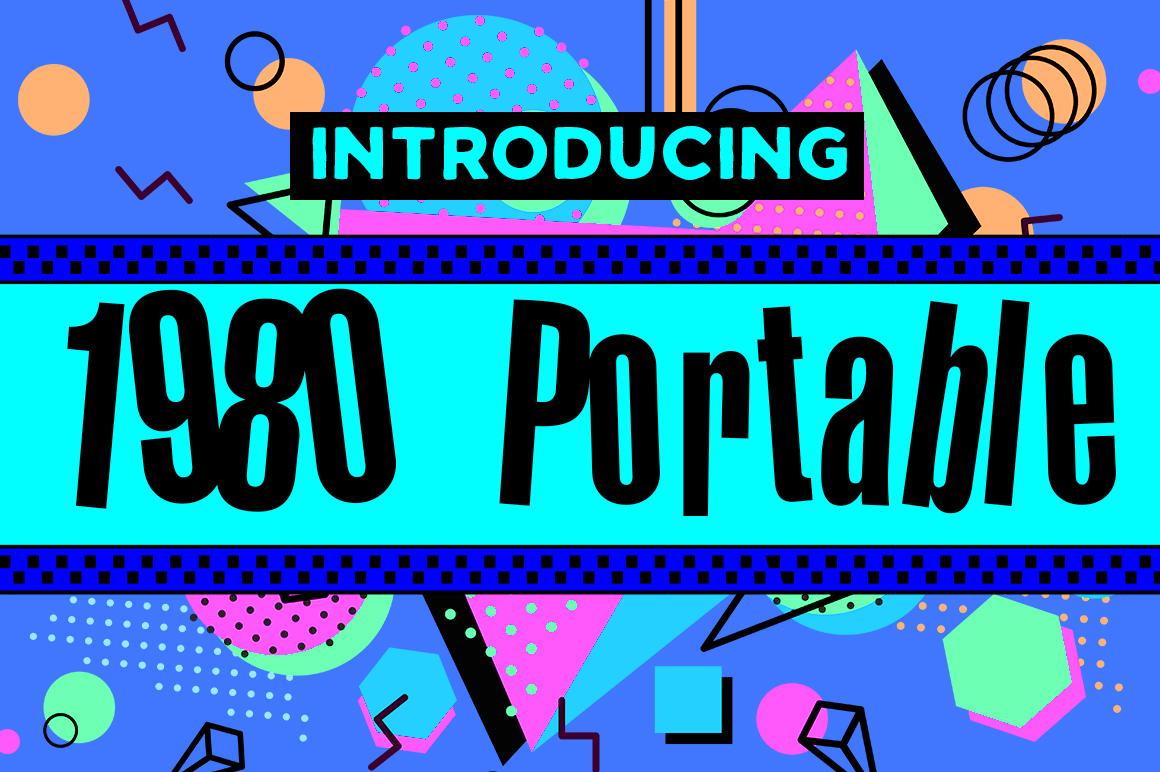
Any fan of retro, nostalgic designs will love 1980 Portable! This bouncy, retro, ska-themed sans serif font is reminiscent of new wave style and is a free font from Typodermic.